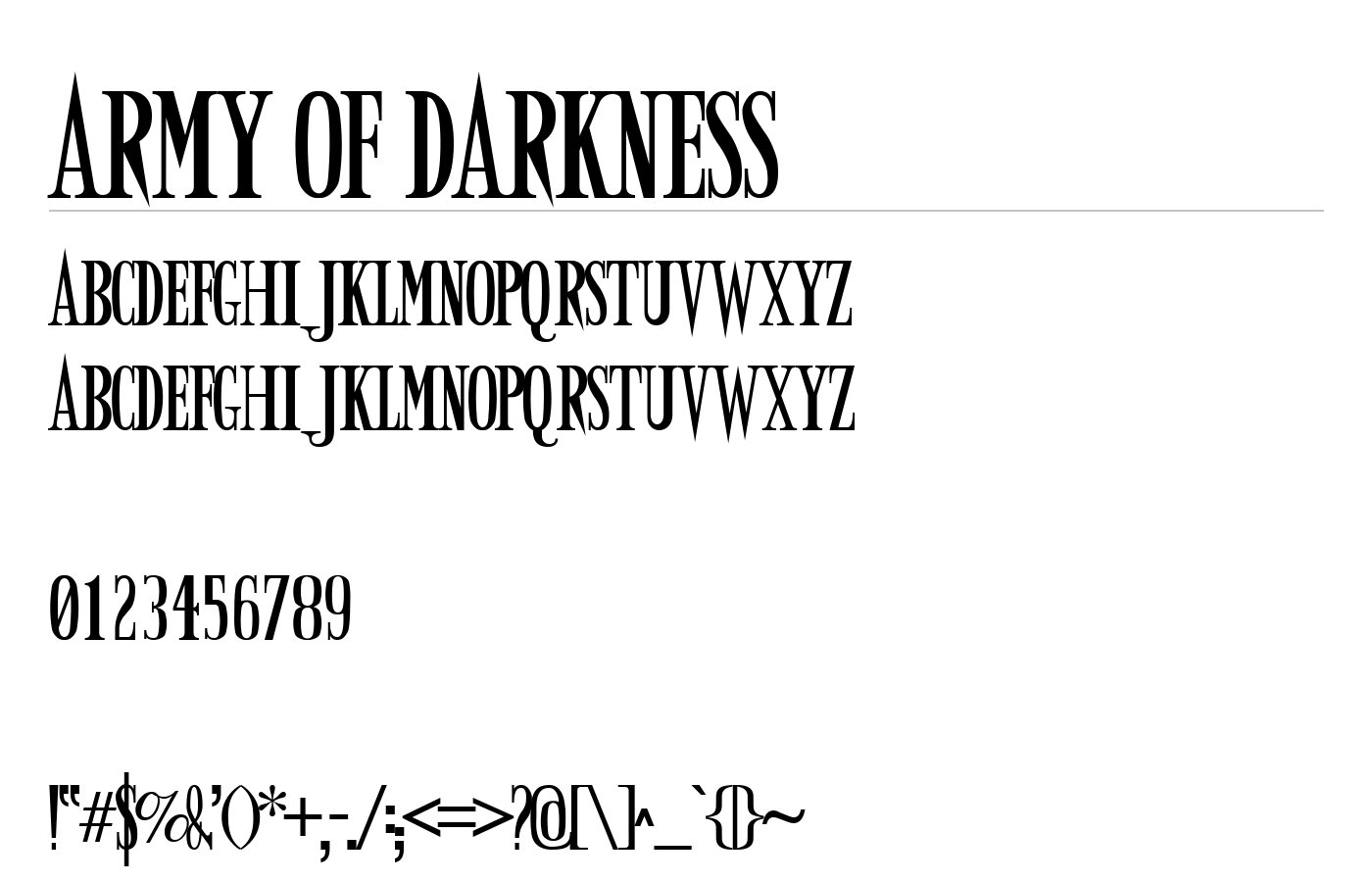
Army of Darkness is a tall, narrow serif font with a dramatic, high-contrast stroke that gives it a sharp and intense appearance. Its elongated letterforms, pointed serifs, and condensed spacing create a vintage yet bold flair, making it perfect for eye-catching titles or branding that needs an edgy, gothic-inspired look. This font works especially well in posters, logos, and packaging where a strong and mysterious mood is desired.
Army of Darkness Font